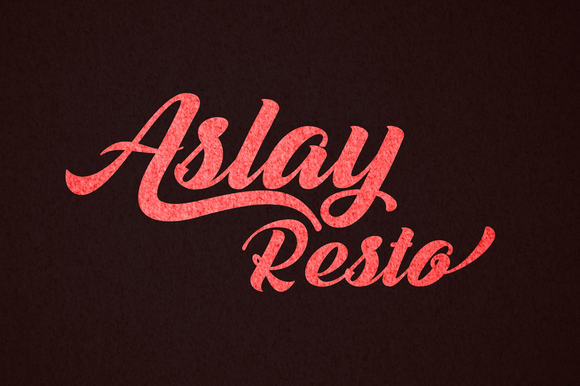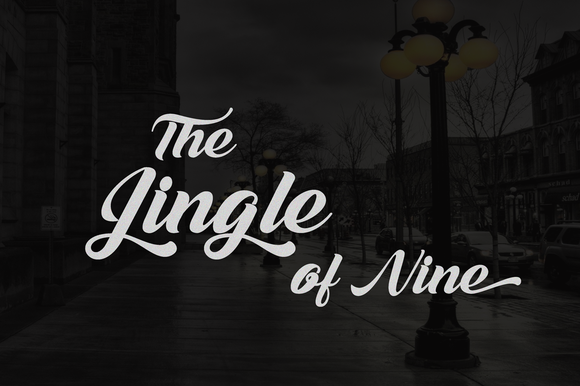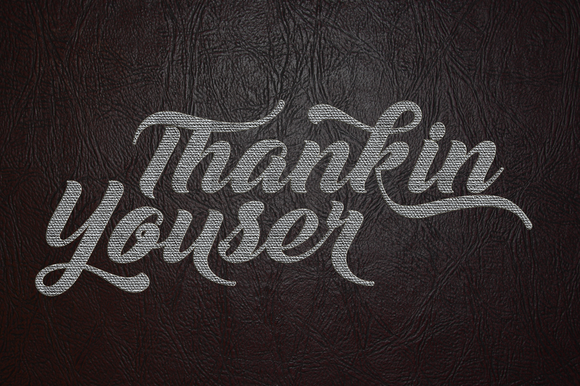
HomeScript FontsMelani Script Font Script Fonts Melani Script Font FacebookXPinterestWhatsApp Melani Script Font Poster 2 Melani Script Font Poster 3 Melani Script Font Poster 4 About Melani Script Font Melani Script is a smooth calligraphy style font that works great for invites, cards and signs. DOWNLOAD NOW People also explored Swanson Ragland Font Standly Font Puzzle in Love Font Scarlet Font Grilesthy Semi-Bold Font The Jungle Font Sunset Font Lacy Font 243 0 TagsMelani Script Font Previous articleMutiara Script FontNext articleMontala Script Font LEAVE A REPLY Cancel reply Comment: Please enter your comment! Name:* Please enter your name here Email:* You have entered an incorrect email address! Please enter your email address here Website: Save my name, email, and website in this browser for the next time I comment. Personal Use Free Adrenaline Personal Use Free Read more about this font Pumpkins Candles Personal Use Free Read more about this font Remember Personal Use Free Read more about this font Predators Personal Use Free Read more about this font BLOG 5 Fonts That Will Dominate Design Trends in 2026 5 Fonts for 2026 That Will Dominate Design Trends Typography plays a critical role in visual communication, and as we look ahead to 2026, it’s... How to Install and Use Fonts on Windows, macOS, and Web Projects Where to Buy American Fonts Online in 2024 Modern Sans-Serif Fonts That Brands Love in 2025